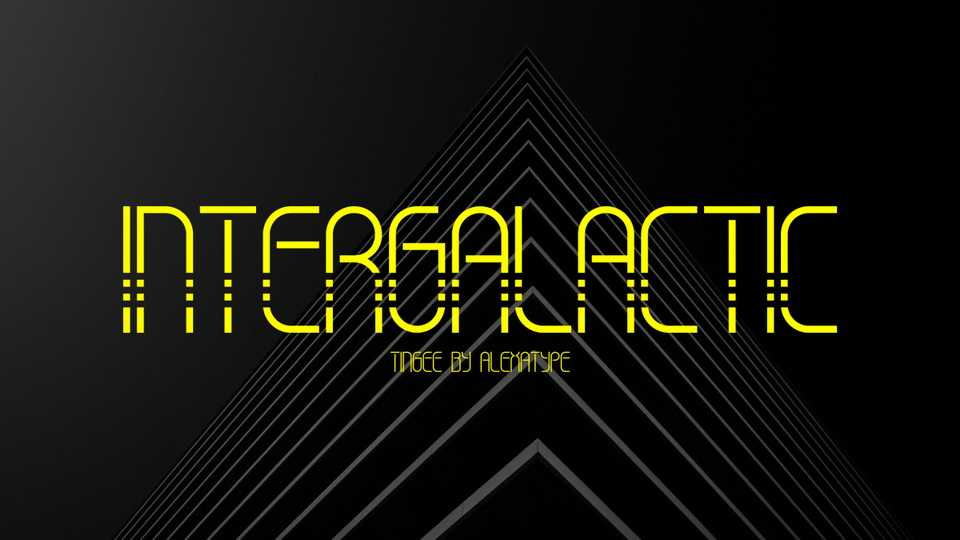
Download Tingee font, a futuristic typeface with slice style for the uppercase. Perfect for high-end article headline, space, modern technology and digital related project.
Designer: Alexatype